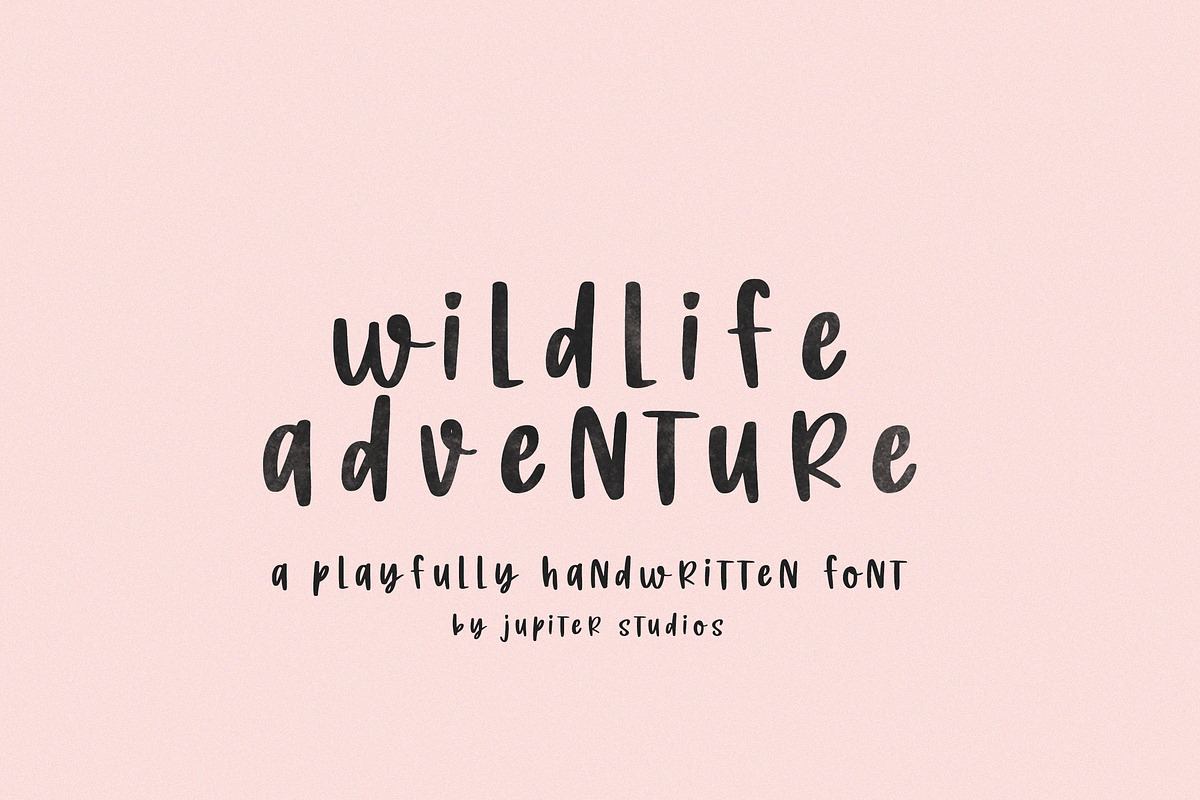
Wildlife Adventure Font Free Download
Wildlife Adventure Font Free Download is a bold and adventurous typeface designed with the great outdoors in mind. With its rugged, natural feel, it’s perfect for adventure brands, wildlife conservation projects, outdoor events, and travel-related designs. The font's organic letterforms, inspired by nature, evoke a sense of exploration and discovery.
Whether you're creating a logo for an outdoor brand, a poster for an adventure film, or any project related to wildlife and nature, Wildlife Adventure Font brings an exciting and impactful vibe to your design.